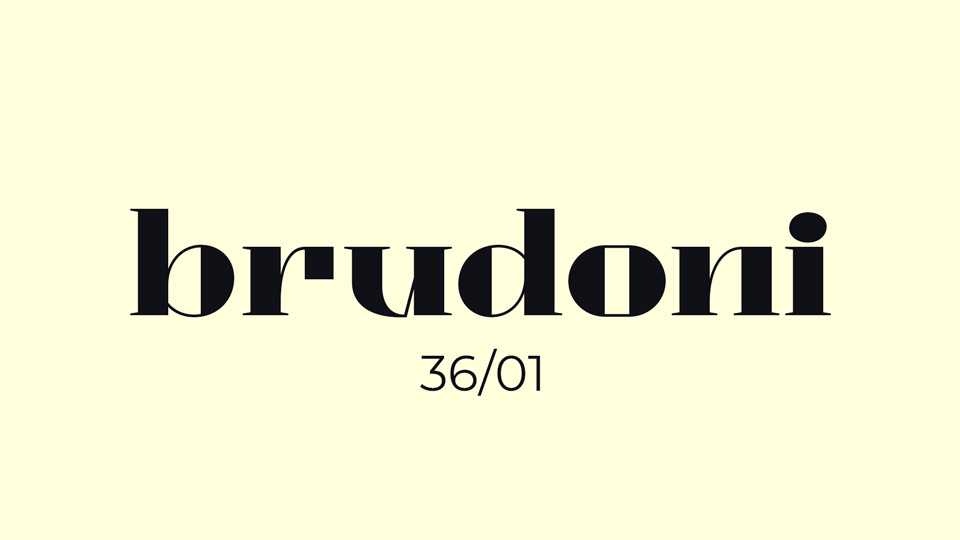
Download Brudoni font, a modern high-contrast serif typeface (like Bodoni or Didot), but with a brutal, constructed style. Brudoni is ideal for impact display design.
Designer: Justin Penner